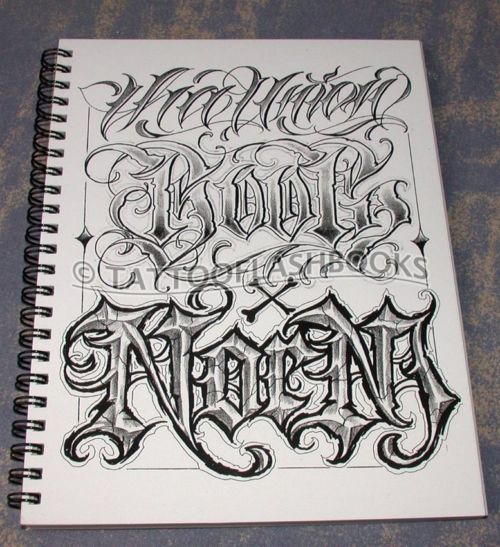
Chicano Gangster Cursive Font Generator
Chicano gangster cursive font generator. As youll see the enlargement shows up distortion free. After generating your fancy text symbols you can copy and paste the fonts to most websites and text processors. Stenciling can be a quick way to produce more complicated graffiti designs and by using two or more layers you can produce color.
Simply input some text load your favorite cursive font into the generator and click generate. Chicano includes uppercase and lowercase letters numerals a large range of punctuation and ligatures. Graffiti can have different styles.
Chicano fonts are styled after the mexican american art movement. Chicano swash in order to use the beautiful swashes you need a program that supports opentype. Tattoo lettering font gangster rap hip hop calligraphy script font script tattoo chicano art chicano style.
All lowercase letters include ending swashes and alternative font. Chicano letters are commonly used for tattoos graffiti and other lettering designs. Chicano fonts are widely recognized as the font type of choice for spanish mexicano peoplepride in their mexican heritage often comes in many forms and this type of text is a natural part of mexicos rich history of hard work family gatherings and cultural cooking passed down through many generations.